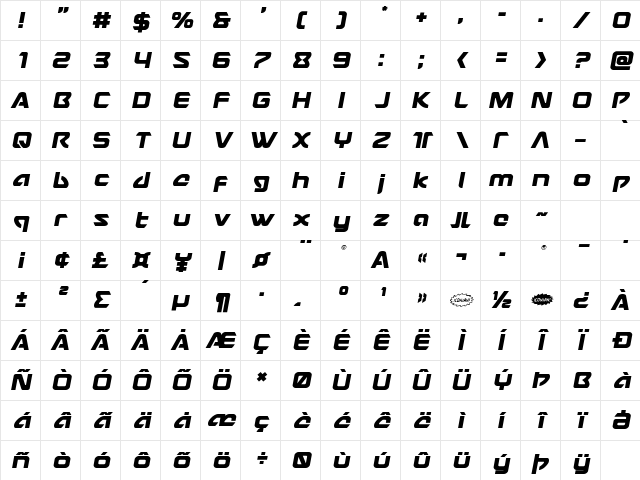
USAngel Semi-Italic Free Font
USAngel Semi-Italic Semi-Italic
Style: Semi-Italic
Complete USAngel Semi-Italic glyph index. Displaying only characters natively supported by USAngel Semi-Italic font.
Design Context for USAngel Semi-Italic
USAngel Semi-Italic is a composed and adaptable typeface that performs quietly and consistently across a wide range of design contexts. The slanted form adds forward momentum and visual energy.
Pro Tip: Use USAngel Semi-Italic for emphasis, pull quotes, and subheadings where its slanted energy can add rhythm to the layout.